Have you ever walked past a hand-drawn sign and thought that it would make a great typeface? Elizabeth Carey Smith did just this via a number of signage sites in Melbourne, producing these as entire alphabets presented as a series of posters known as ‘Imaginary Alphabets’.
What was the reasoning behind Imaginary Alphabets? Was it a reaction to being an ‘outsider’ (from beyond Melbourne)?
I started the project because, as a new freelancer, I wanted something productive to occupy my time between projects. I’d been thinking about it vaguely for some time, and thought I’d act upon it. I’d walked by that Lucattini sign [that inspired the first imaginary alphabet] a number of times and always marvelled at the script. To this day, I’ve never seen another like it.
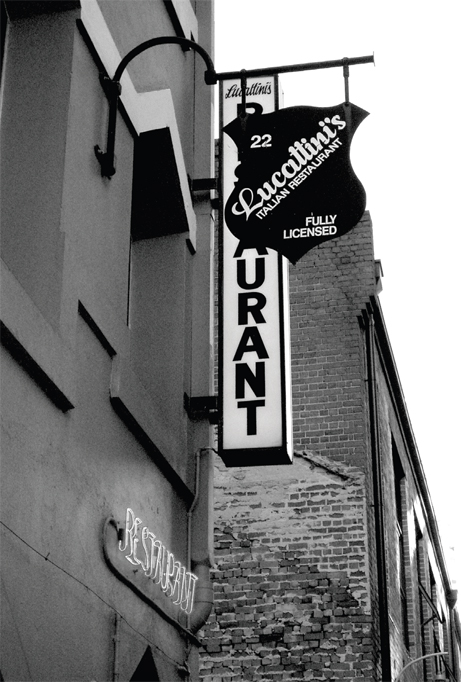
Imaginary Alphabet 1: Lucattini. The original Lucattinis sign found in Punch Lane, Melbourne
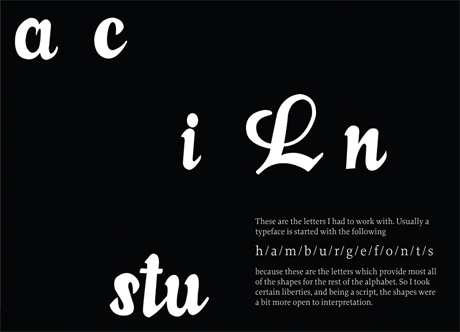
The letters (taken from the above sign) that Carey Smith had to work with
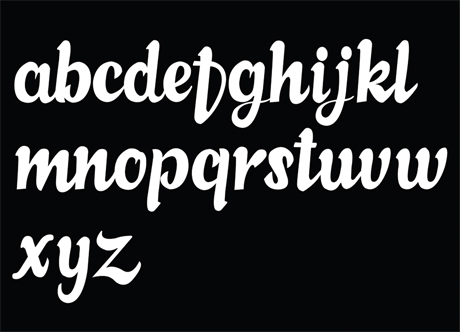
The lowercase alphabet developed by Carey Smith
What inspired its formulation/design? Were there particular precedents that you built upon?
Even though I’ve always been a type- and letter-based designer (in my thinking process anyway), I hadn’t drawn many letterforms since leaving art school in 2002. Certainly not full alphabets. The project became a challenge to see how much existing structure was needed for me to ‘fill in the blanks of found lettering’, which became the tagline to Imaginary Alphabets. I started thinking about the letters as 26 children, who all had to look related, but of course retain their own personalities. There may be other similar projects out there, but when I come up with an idea I purposely don’t look around the web. I don’t want to skew the results or dampen my enthusiasm, so there are no precedents aside from the challenge itself and, of course, wanting to maintain a quality that type designers and purists could appreciate.
What did you ultimately intend to do with the project?
With few exceptions, I never noticed much interesting type exploration in Melbourne (a lot of knocking out counters and other rudimentary trends), so I thought it might be a way to differentiate myself from other designers in the freelance market. The project did not become something that sold me to studios, per se, but then it did eventually evolve into a little show in Brunswick (Direct to Public), which was fun, but a lot more work than I’d anticipated. I decided after that to go back to just making alphabets for the value of the exercise.
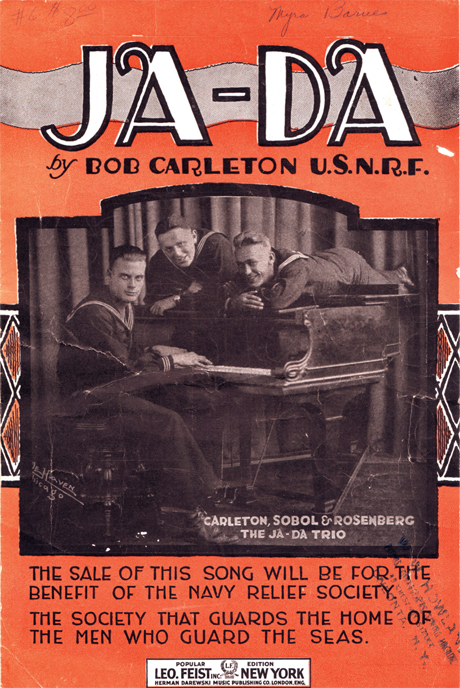
Imaginary Alphabet 6: Jada. The source material found on sheet music in an antique store in Cold Spring, New York
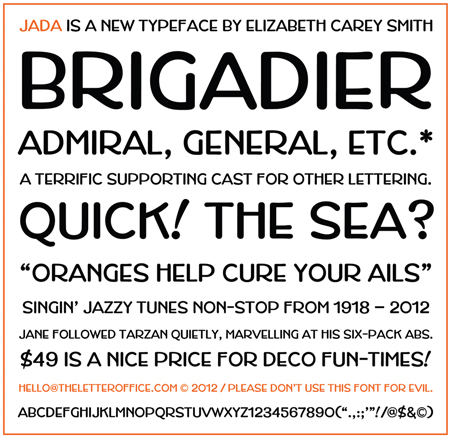
The full character set
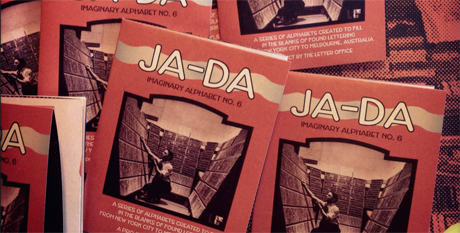
The final booklet
What particular challenges did you experience?
I had one semester of type design in undergrad, plus a crash course at Cooper Union in FontLab, so I was really relying on my own assumptions about the construction of letters. I very much was just putting myself and my ideas out there and practically winced as I mailed them out in fear of a backlash of criticism. When the alphabet was positively received, I got the confidence to try another. Tobias Frere-Jones was collecting them on the shelf over his desk – when he told me that, I nearly did a cartwheel.
Are you going to continue the project now that you’re back on home turf?
I’ve completed two Imaginary Alphabets since returning to New York: the first was Harlemite, based on Harlem park signage, and the second, Jada, based on sheet music from the old American jazz standard. The latter is the first to have been built as a usable font, and will be available on My Fonts. I keep thinking, ‘OK, this will be the last one’ and then I’ll stumble across an old sign or something at a flea market and change my mind again.